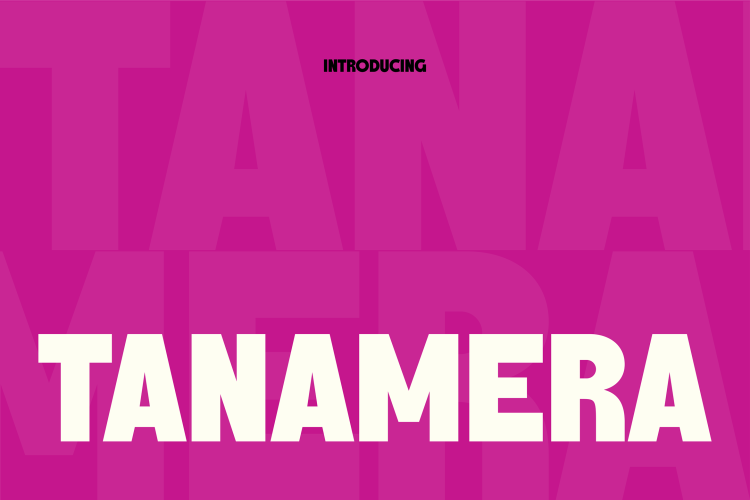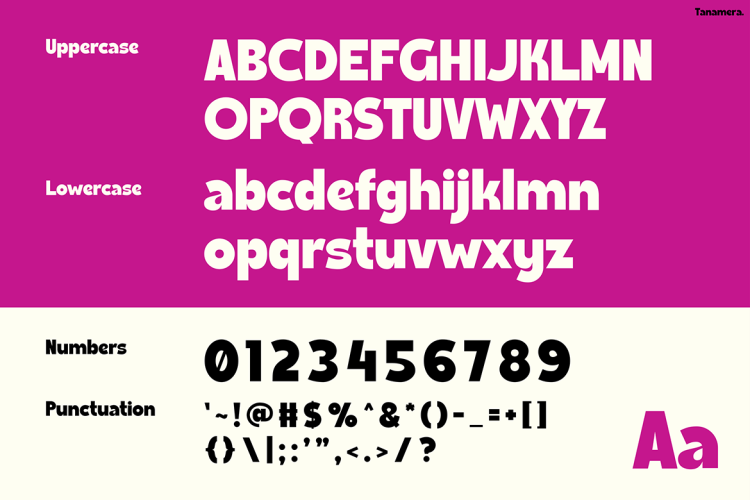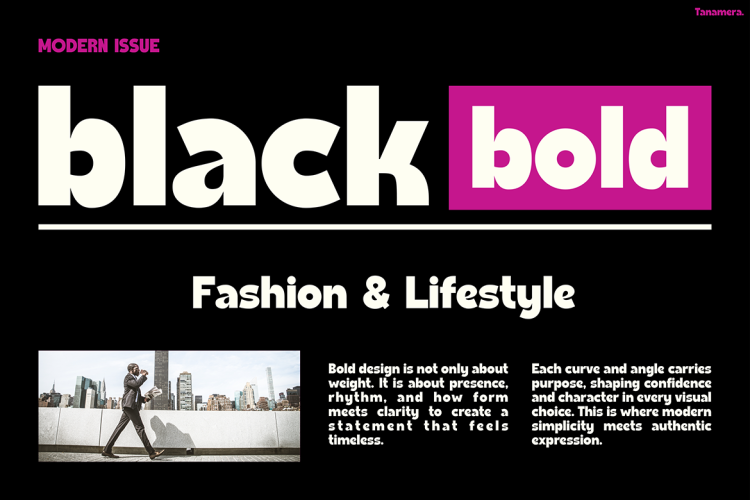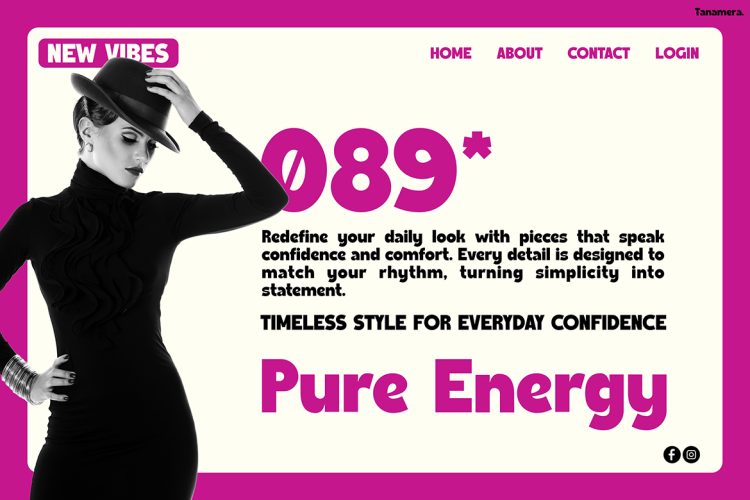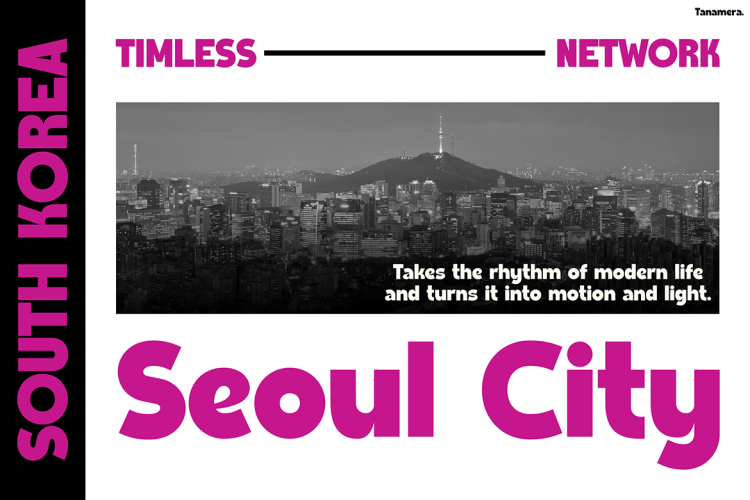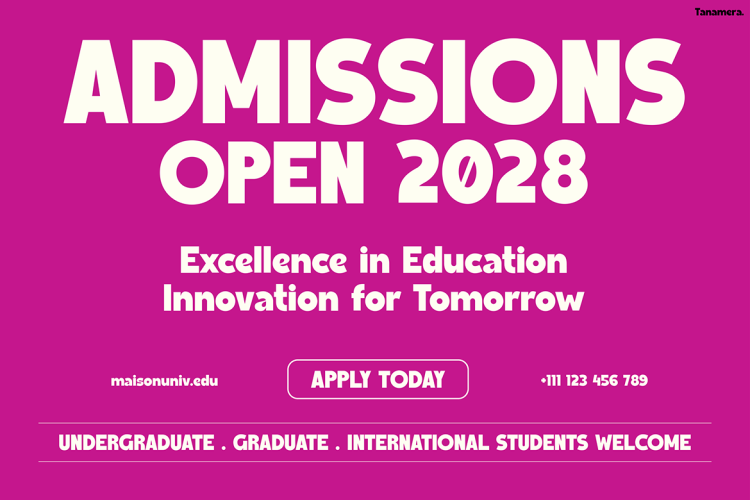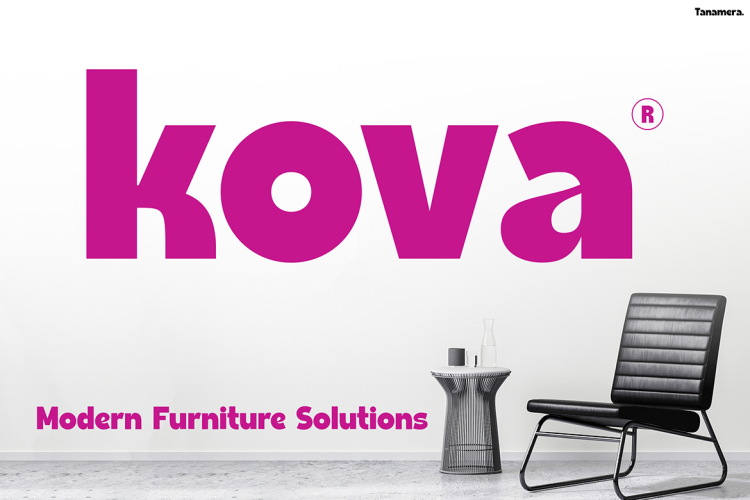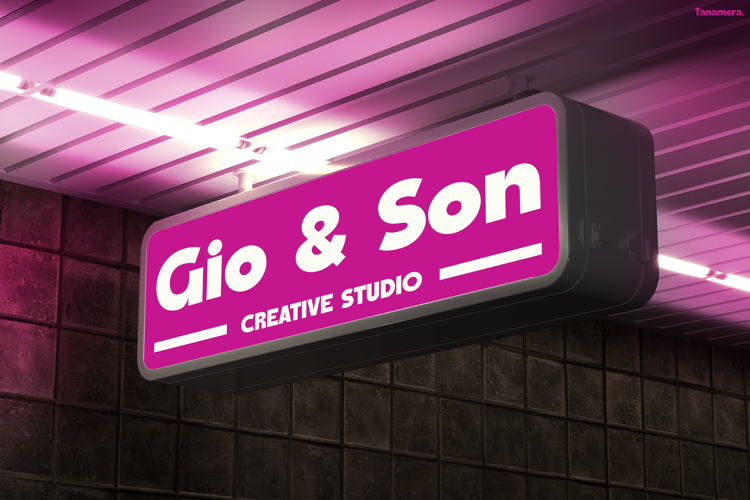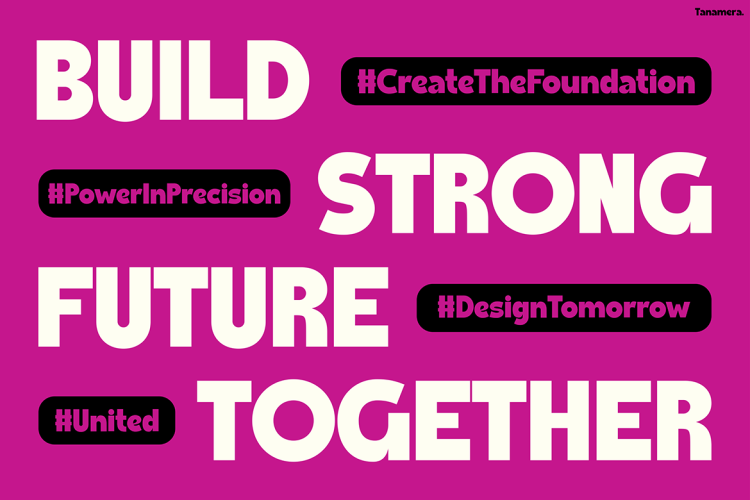
Instagram Font Tanamera โ Bold Aesthetic for Modern Visuals
Instagram Font Tanamera blends bold energy with timeless elegance. Itโs designed to balance sharp modern lines and smooth curves. The result is a stylish, confident, and eye-catching typeface for modern creators.
Its sleek geometry makes every layout stand out โ perfect for social media, fashion, or lifestyle branding. Moreover, each letter looks clean yet strong, turning simple text into bold visual art. You can use it for headlines, quotes, and striking captions.
With its modern rhythm and clear structure, Tanamera delivers both luxury and readability. In addition, the typeface brings confidence and clarity to your visuals. Therefore, it helps your message shine in todayโs fast, digital world.
Perfect For Creatives, Brands, and Digital Visionaries
Tanamera suits those who dare to be different. Itโs perfect for content creators, fashion designers, influencers, marketers, and creative brands. You can use it to design social media posts, ads, or bold product campaigns.
In addition, it helps startups and digital businesses create a strong and consistent brand image. Its geometric balance makes it versatile for posters, logos, and magazines. Moreover, the smooth curves keep your design friendly and easy to read.
Because of its clarity, Tanamera fits both print and digital media. It adds structure to headlines yet remains stylish for modern layouts. As a result, your content feels professional, trendy, and visually powerful.
Make Your Brand Speak with Confidence
Typography defines identity. With Instagram Font Tanamera, your words stand out clearly and confidently. Its mix of bold weight and clean form creates instant impact.
Besides that, the simple shapes bring modern precision to your visuals. Whether you design a campaign or a logo, Tanamera adds authority and creativity.
So donโt follow trends โ set them. Use Tanamera to express bold ideas and modern aesthetics. In conclusion, this typeface is not just a tool โ itโs your brandโs visual voice.